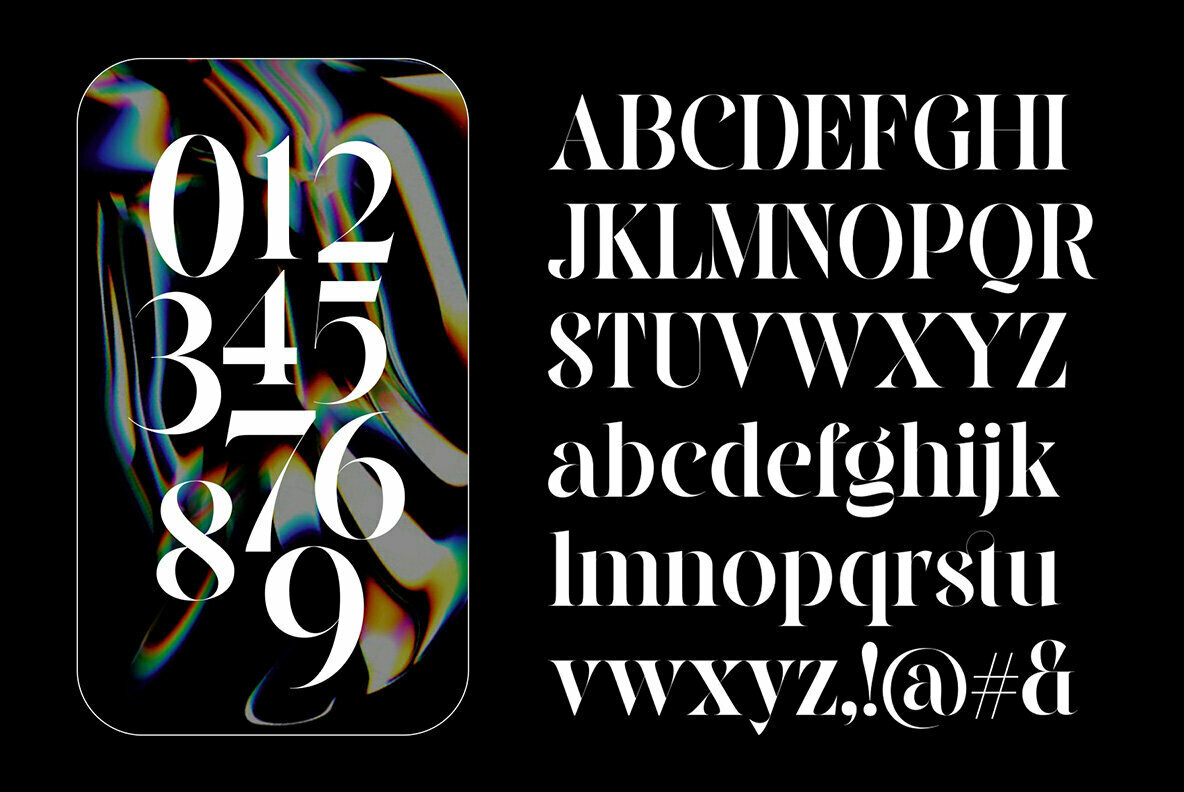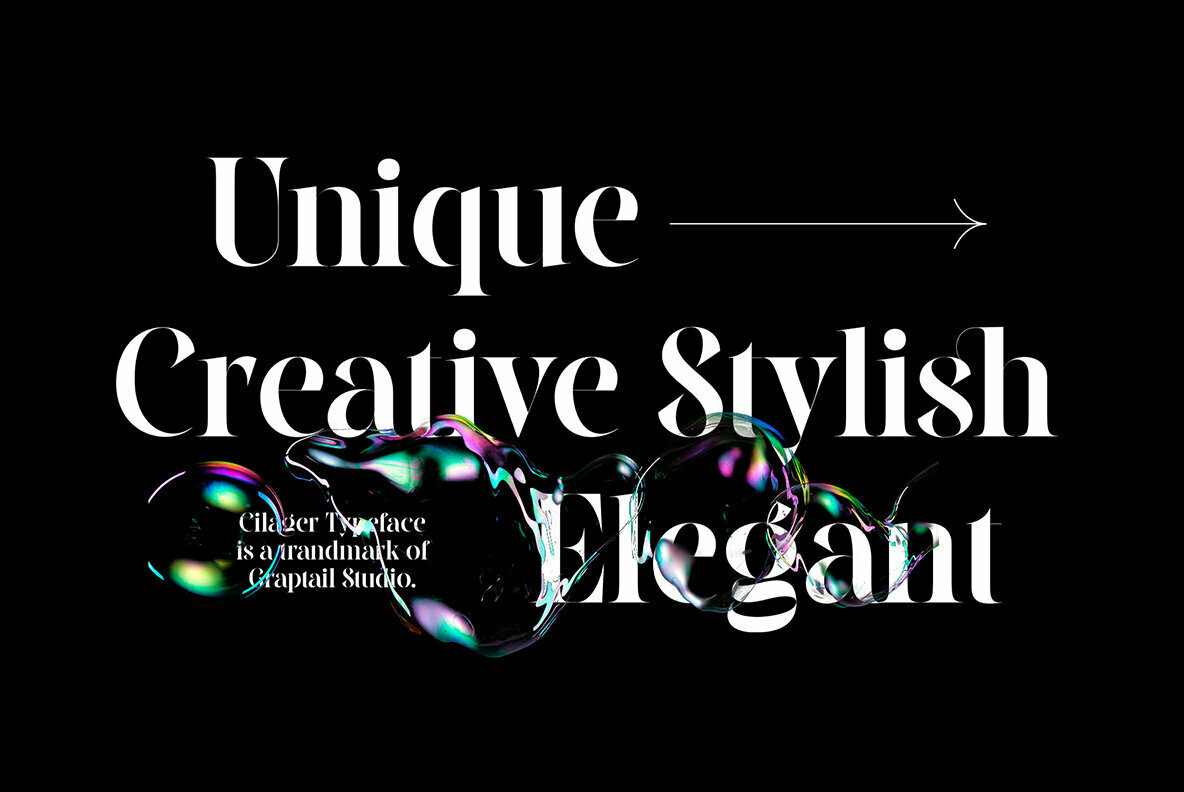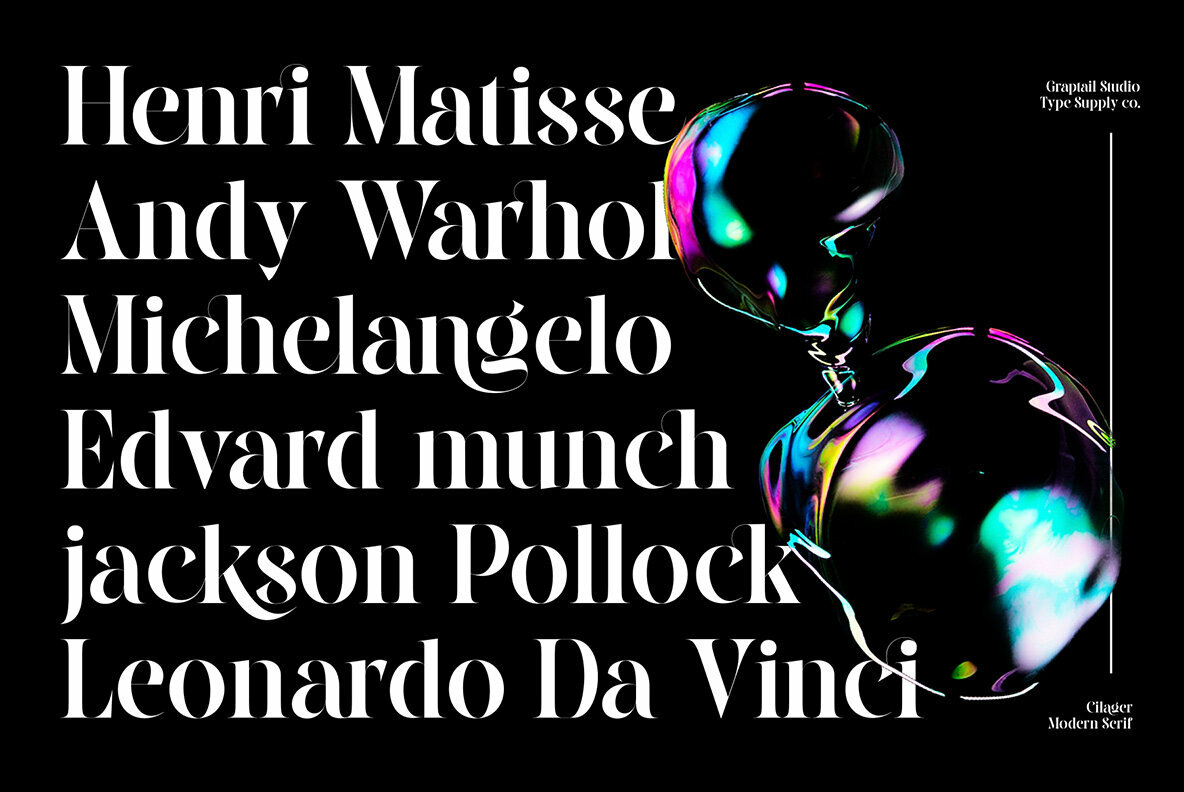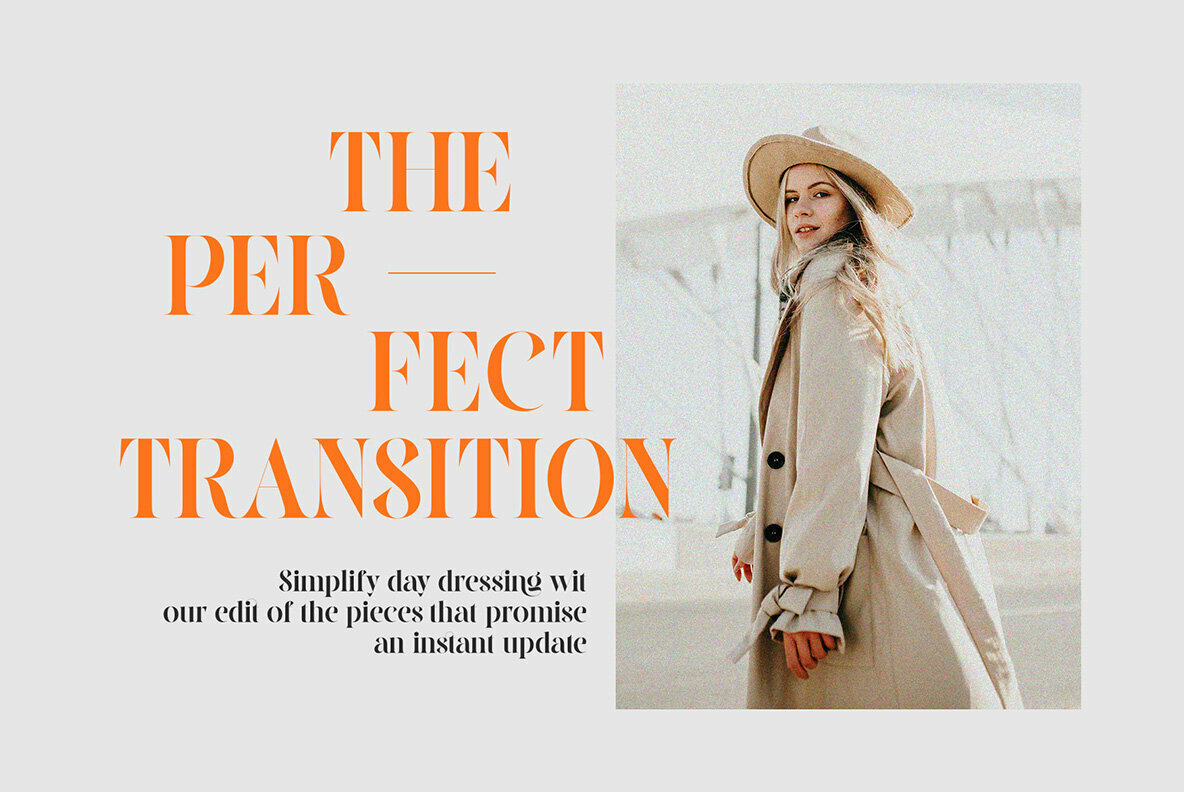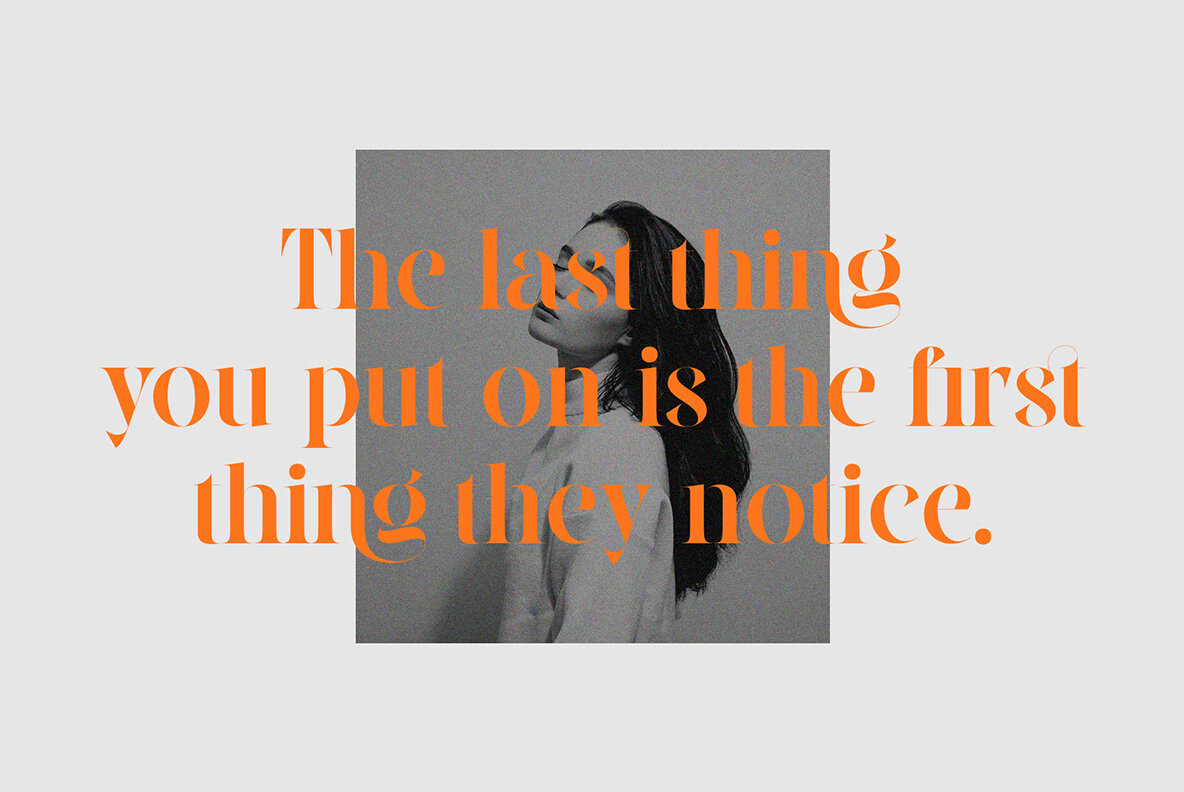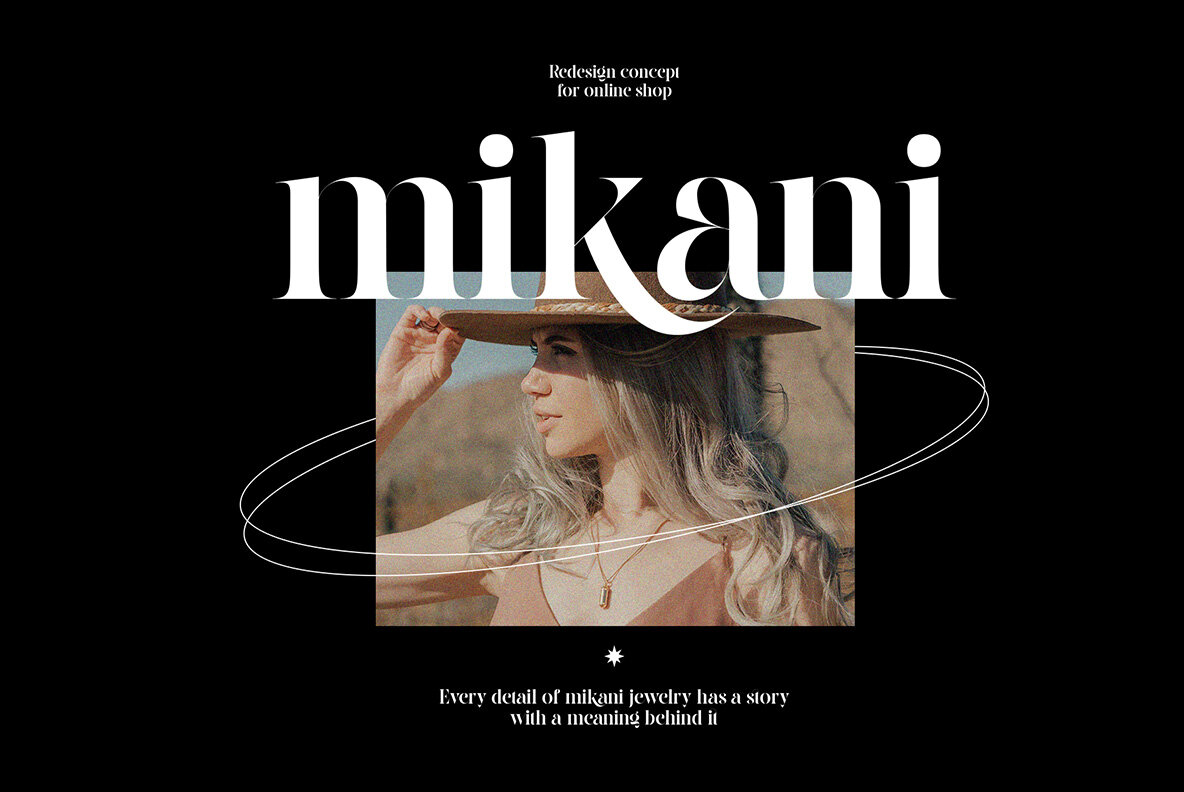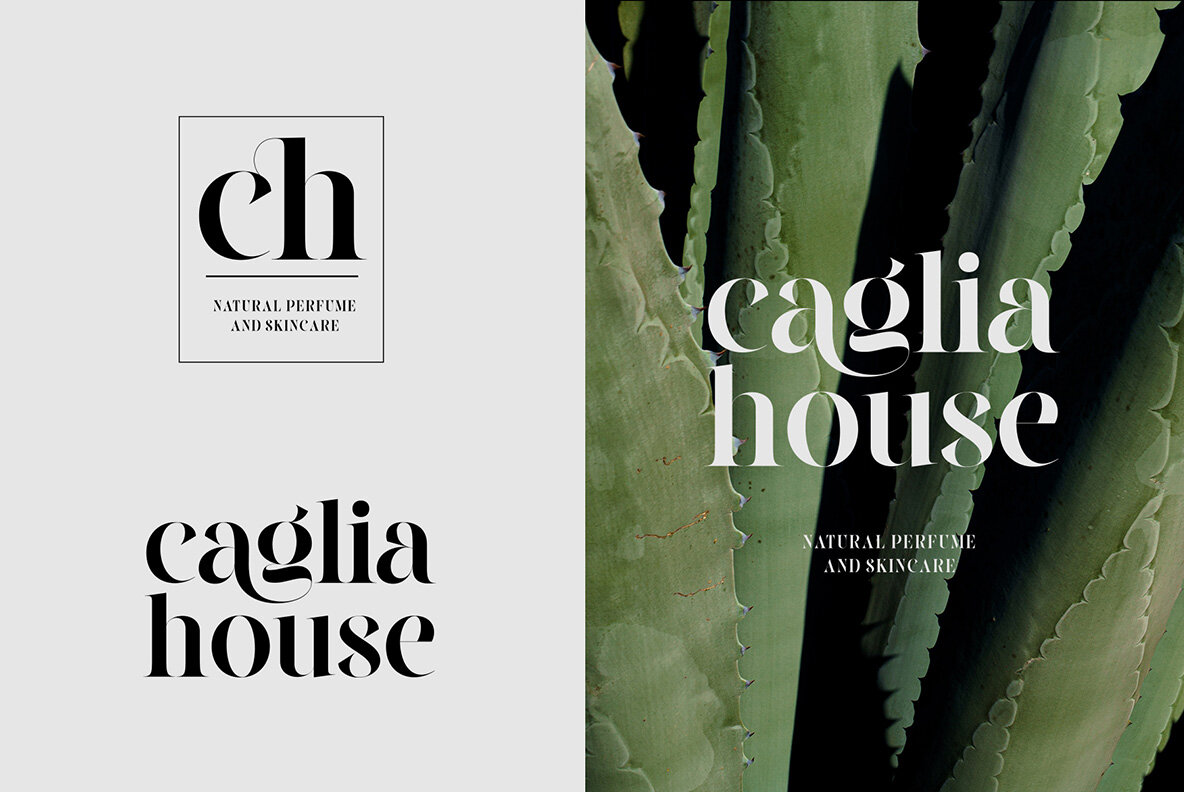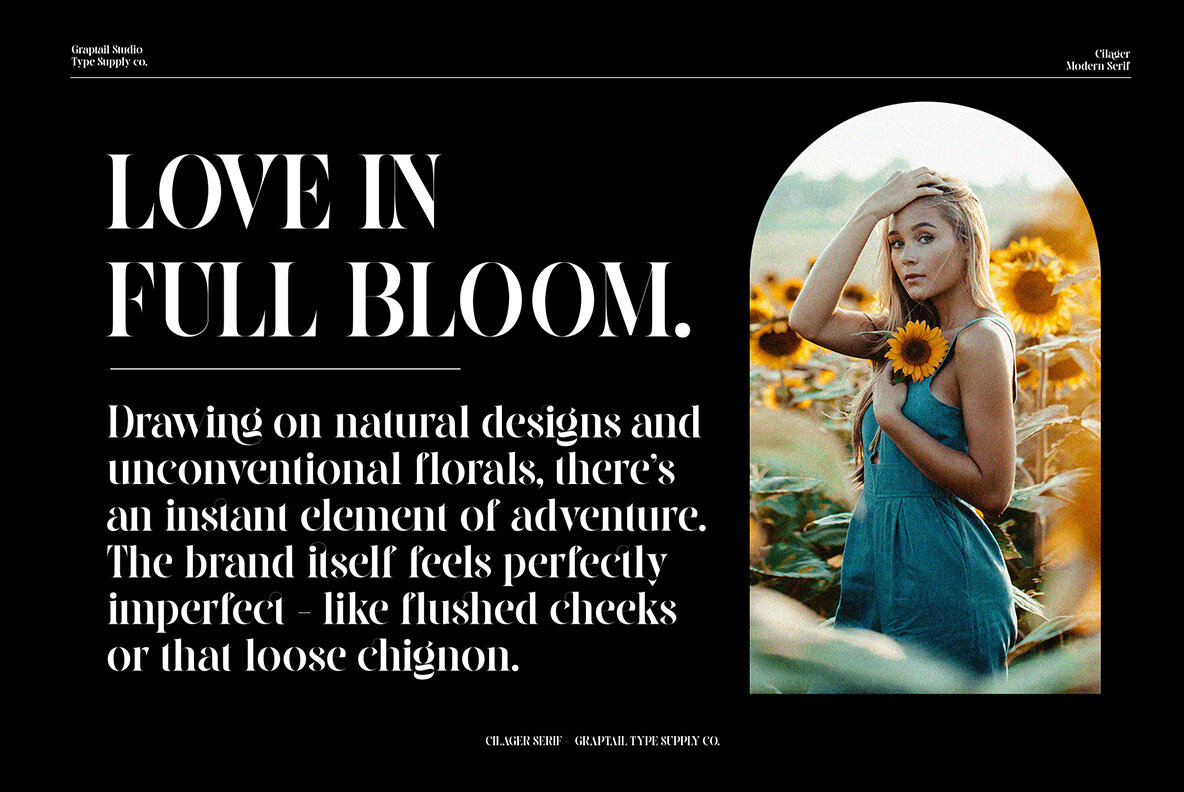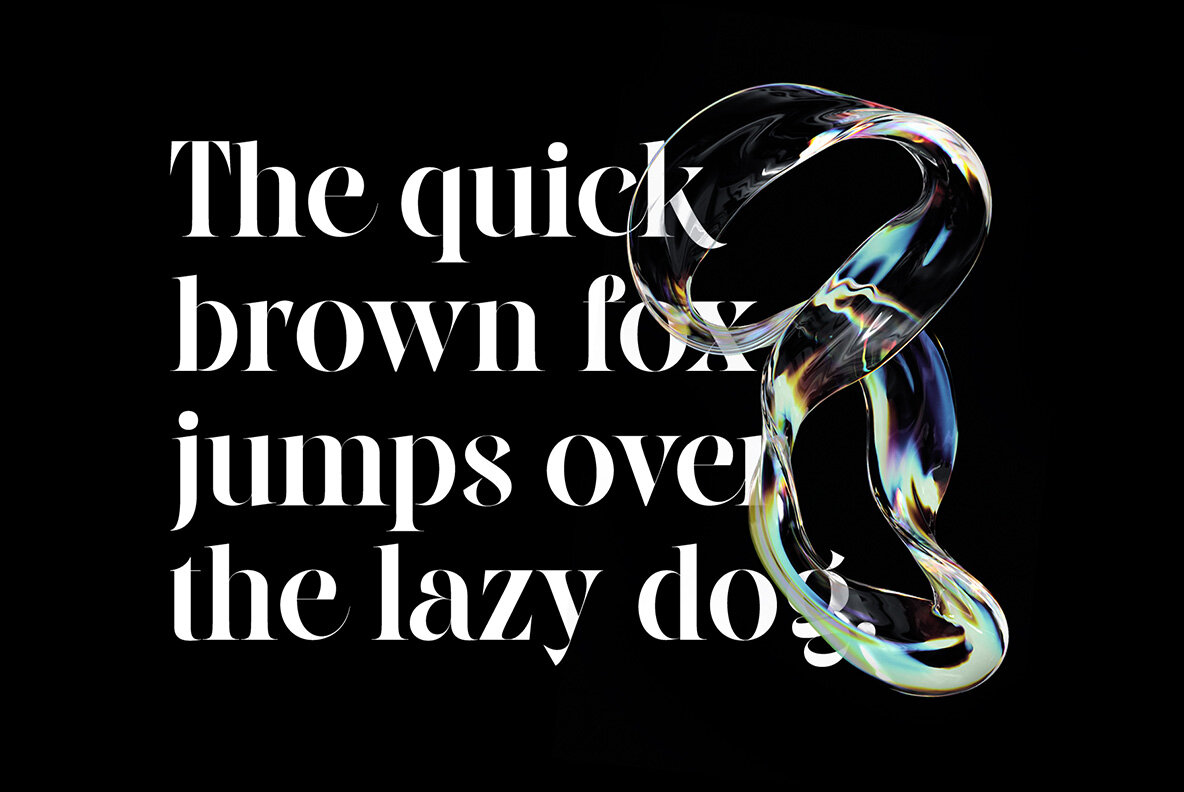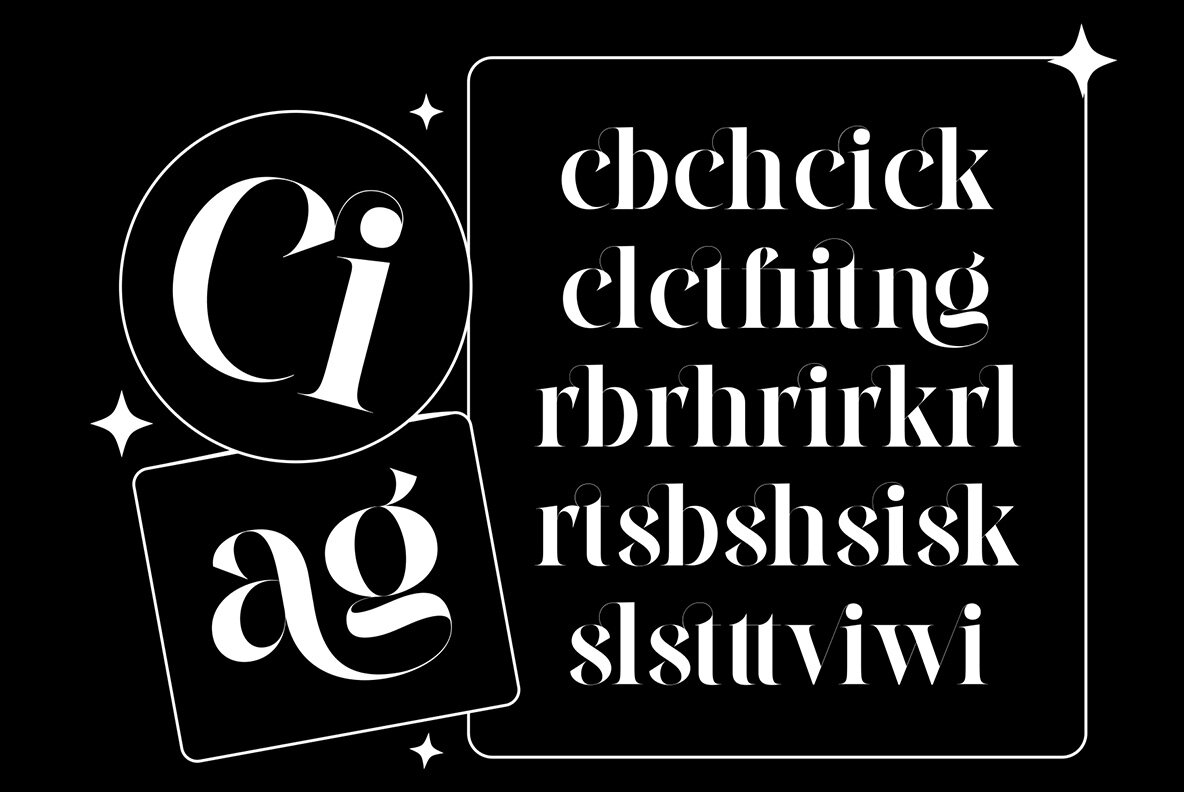
Cilager Font
Cilager Regular
Cilager, a striking creation by Graptail, offers a modern serif typeface that infuses a touch of romance into its sophisticated curves. Ideal for a diverse range of projects, Cilager enriches visual aesthetics, making it a versatile choice for logos, greeting cards, quotes, and posters. This typeface exudes a charm that enhances the appeal of branding materials, business cards, and even movie titles and blog headers. The typeface includes a comprehensive set of 26 ligatures, facilitating creative expression when developing unique titles and designs. Additionally, Cilager supports PUA encoding, allowing you to easily access and integrate alternative characters through tools like Character Map or Font Book.Cilager: A Modern Serif Typeface With a Romantic Touch
Design Flexibility